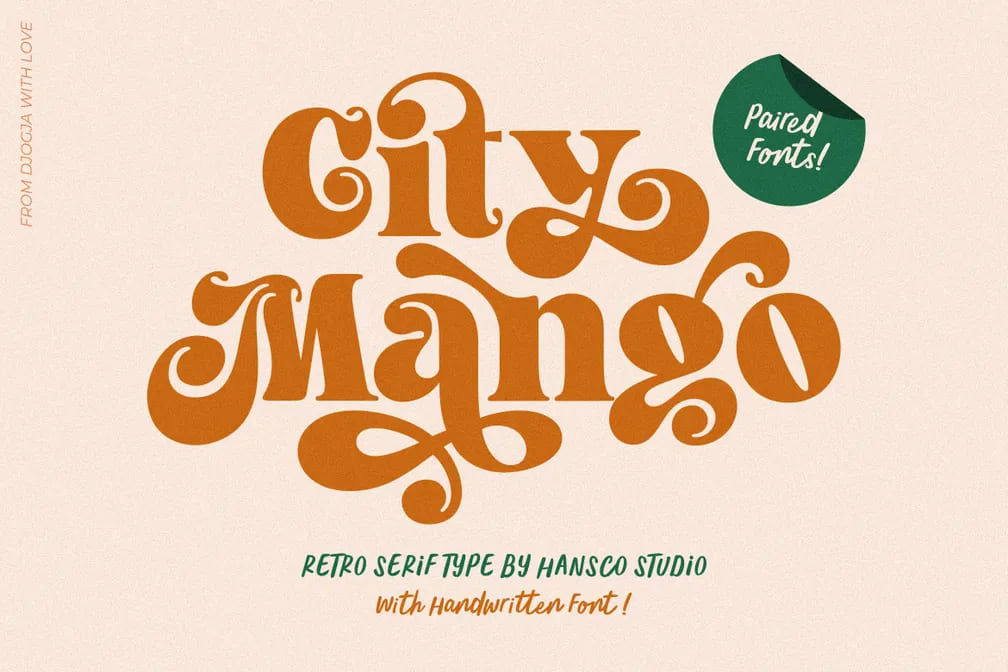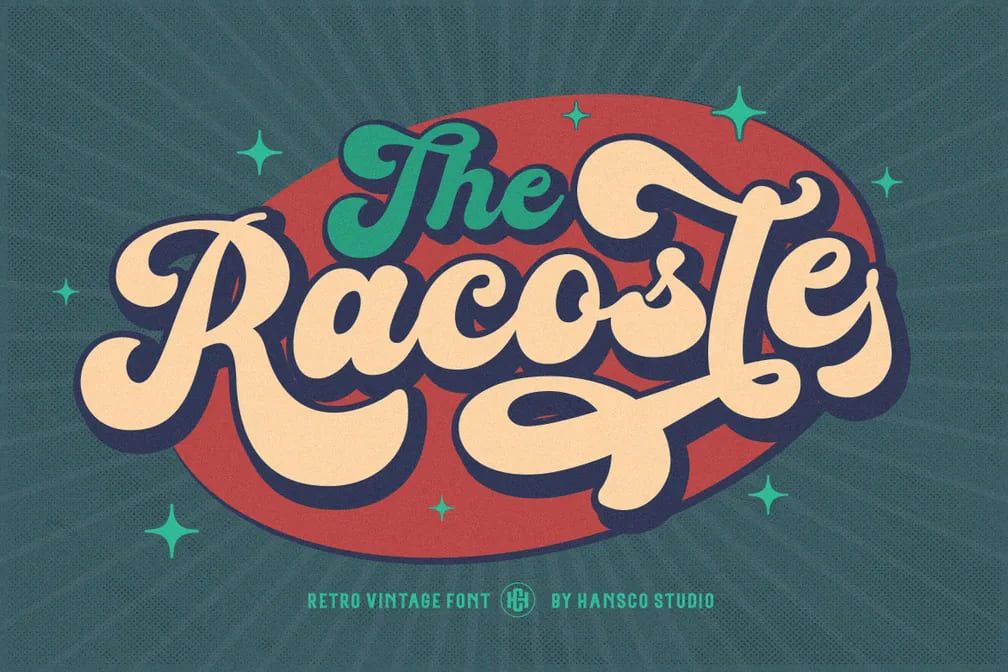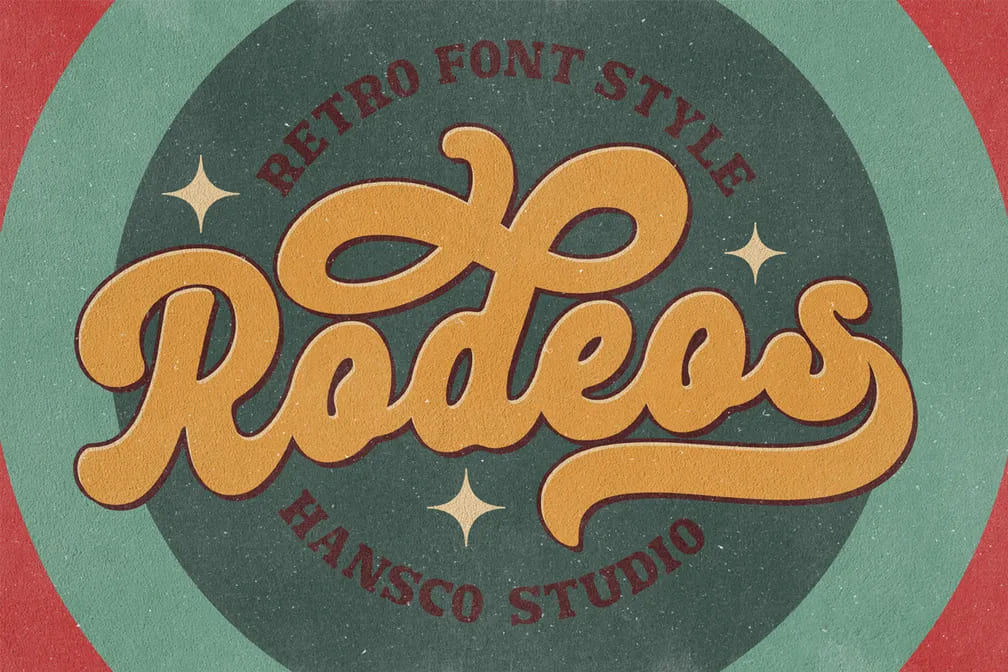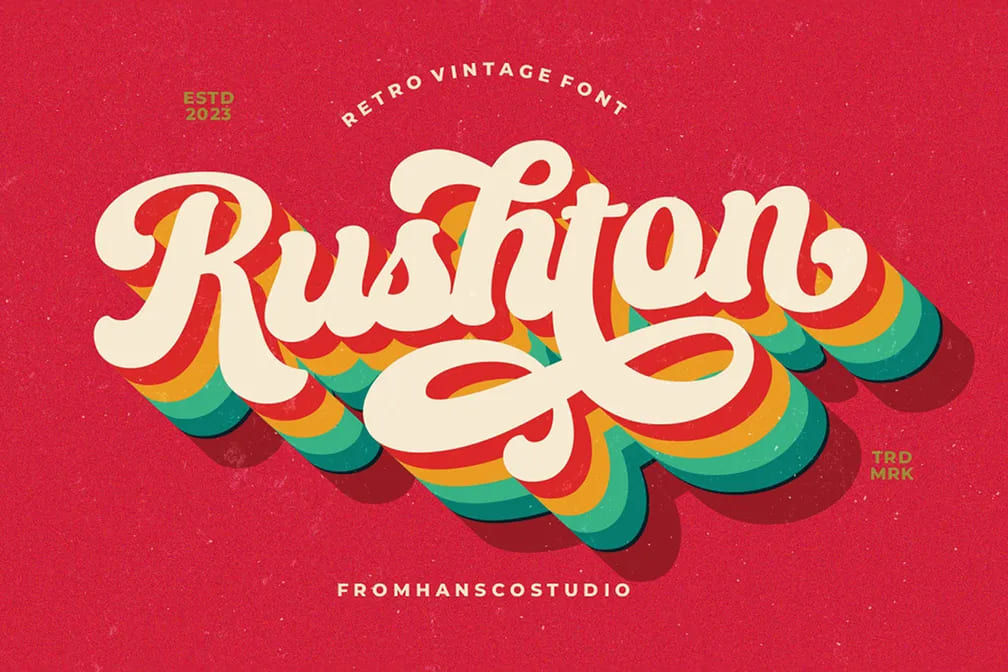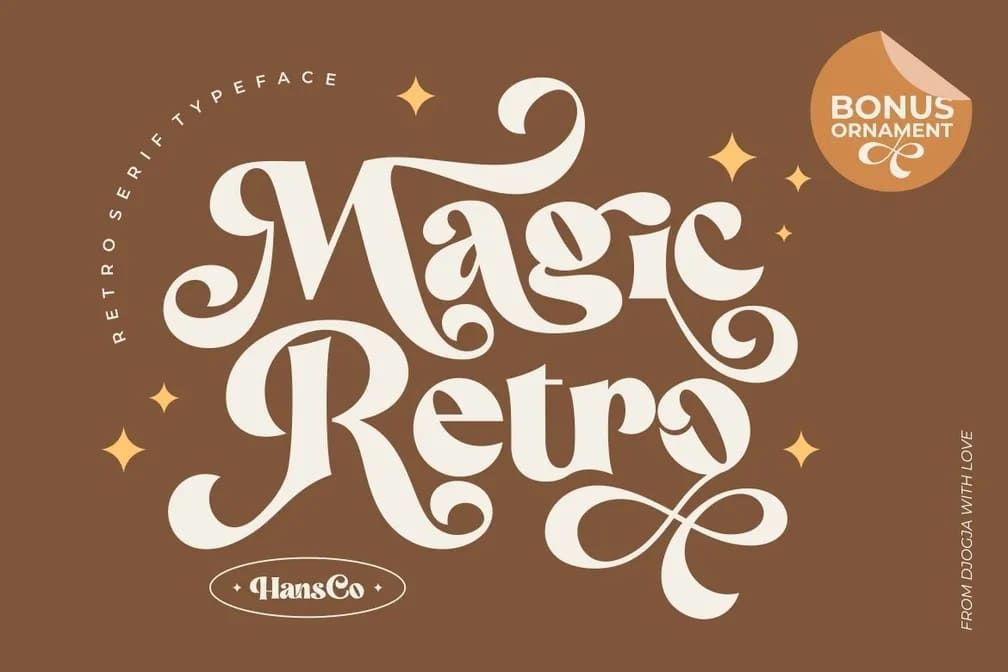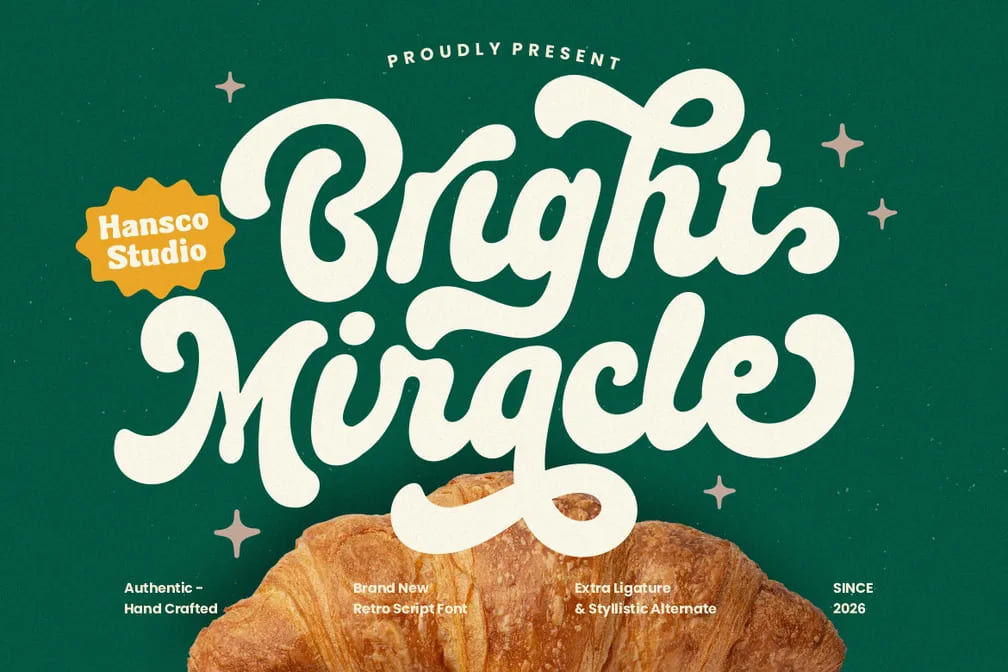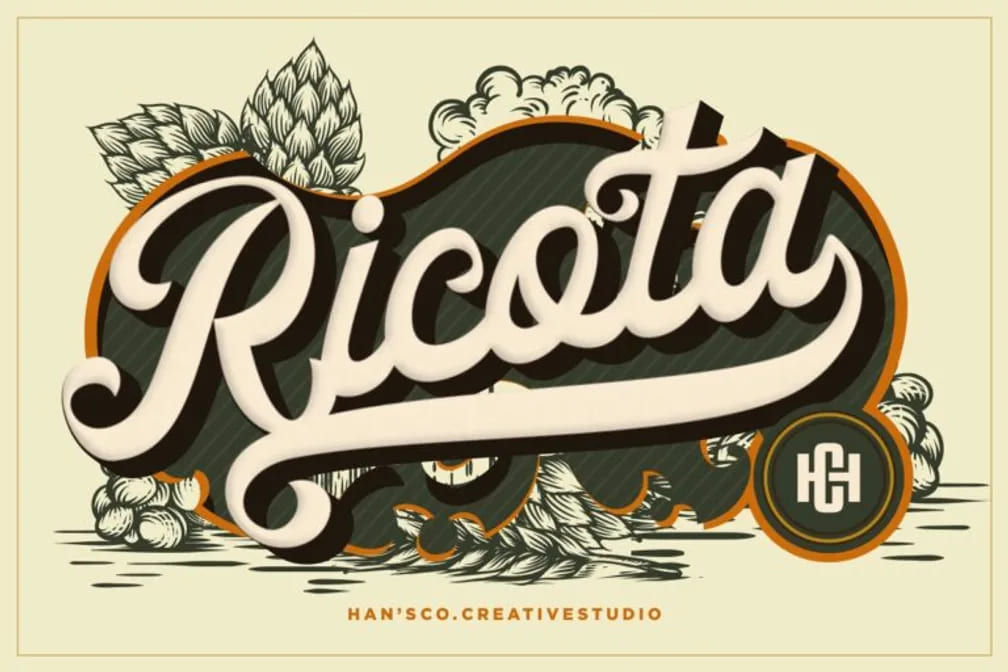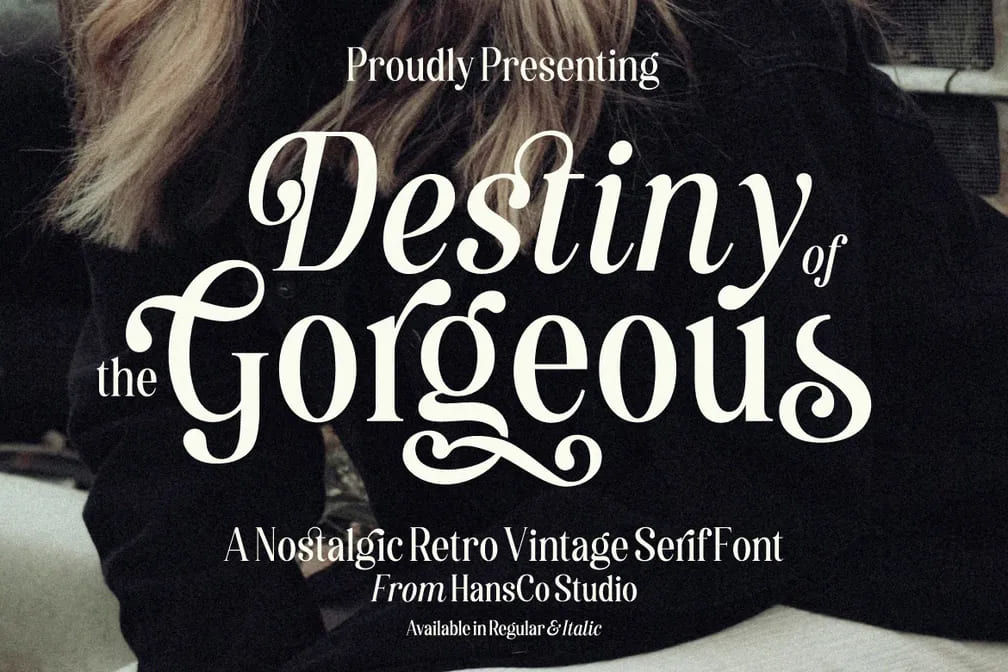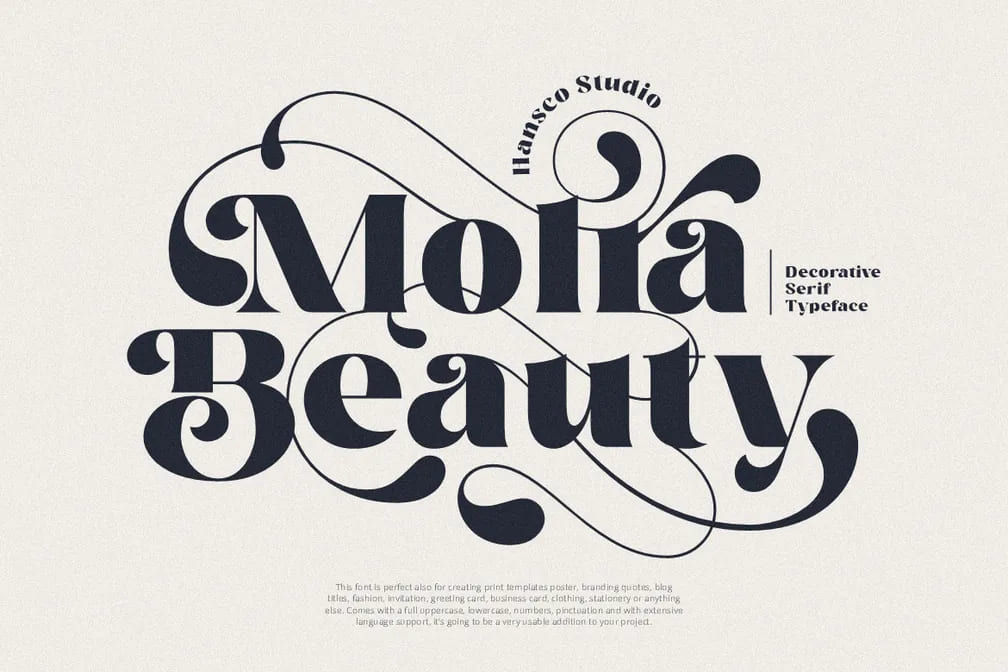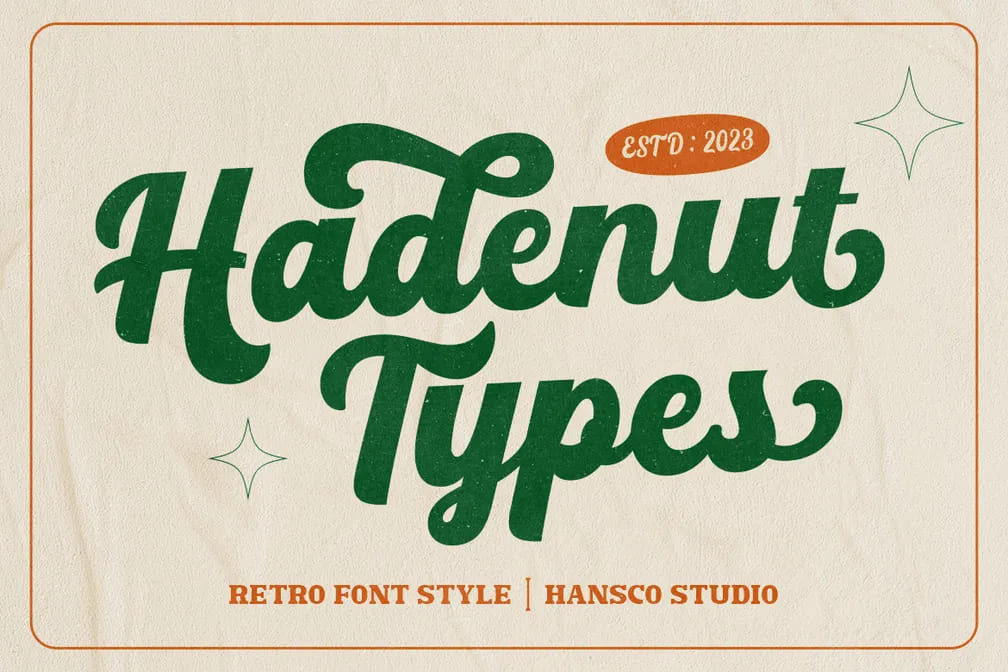
Top 20 Retro Script Font Styles for Modern Design
Using a retro script font has become a powerful way to bring personality and emotion into modern design, combining nostalgic influences with contemporary versatility. This collection brings together a variety of expressive typefaces that capture the essence of vintage style.
This article helps you discover the best retro script fonts to enhance your creative design.
Key takeaways:
• Retro script fonts combine vintage-inspired aesthetics with modern design flexibility, making them suitable for a wide range of creative projects.
• They help enhance visual identity by adding personality, emotion, and a nostalgic touch to branding, packaging, and digital content.
• Choosing the right retro typeface can significantly elevate design impact, making compositions more memorable and visually distinctive.
Top 20 Retro Script Font Picks You Should Try
Ucreative states that retro is a pop art movement that emerged during the 1940s and 1950s. Today, it has become one of the main styles that people use. Explore this retro script font collection to achieve the style that you want.
1. Retro Harmony
Retro Harmony is a clean, cute retro-style display font with versatile alternate characters and full multilingual support.
2. Magic Seventies
Magic Seventies blends vintage charm with refined modern aesthetics, offering stylish swashes and an extensive range of alternate characters.
3. Sunday Eighties
Sunday Eighties is a bold and simple retro vintage serif font with stylish alternate characters, perfect for adding a nostalgic yet striking touch to any creative design.
4. City Mango
City Mango is a lively throwback vibe with a distinctive classic look, making it a standout choice for elevating any visual concept.
5. Racoste
Racoste is a retro-inspired lettering typeface that brings a vintage flair to modern visuals, complete with decorative alternate forms on selected characters.
6. Shine Coasty
Shine Coasty is a classic serif typeface infused with a nostalgic retro vibe, designed to give your visuals a refined yet timeless character.
7. Rodeos
Rodeos is a retro calligraphy font that captures a classic vintage spirit, featuring decorative alternate forms on select characters for added personality.
8. Rushton
Rushton is a retro-inspired lettering font that blends vintage character with expressive alternate glyphs for select letters.
9. Magic Retro
Magic Retro is a casual retro serif typeface with a contemporary twist, designed to feel playful yet refined, with decorative alternate forms available in both regular and italic styles.
10. Bright Miracle
Bright Miracle adds a relaxed yet stylish touch to your visuals with this retro-inspired modern script typeface that fuses vintage characters with a clean, current aesthetic.
11. Ricota
Ricota is a retro script font inspired by vintage lettering, featuring a rustic personality and decorative curved alternates that amplify its expressive charm.
12. Destiny Gorgeous
Destiny Gorgeous is a refined retro serif typeface that combines graceful femininity with a timeless vintage aesthetic.
13. Molra Beauty
Molra Beauty is a retro-casual serif typeface with a contemporary edge, crafted to feel playful yet polished, with expressive alternate letterforms that add personality to each design.
14. Hadenut
Hadenut is a retro-inspired lettering font with a vintage personality, offering decorative alternate characters that add extra flair to selected letters.
15. Letter Magic
Letter Magic carries a playful, nostalgic feel with a strong retro-vintage aesthetic, designed to enhance creative work with a distinctive visual charm. Built for versatility, it works seamlessly across platforms like Canva and Cricut.
16. Magic Funk
Magic Funk is a retro-casual serif typeface with a modern groove, designed to bring a lively and expressive feel to any visual work.
17. Chunky Retro
Among many modern retro vintage fonts, Chunky Retro offers a smooth, rounded structure that gives each letter a soft and polished appearance.
18. Wrongler
Wrongler is a handwritten retro cursive font that blends a casual signature feel with a polished, professional finish. Inspired by traditional calligraphy and refined into a clean modern form.